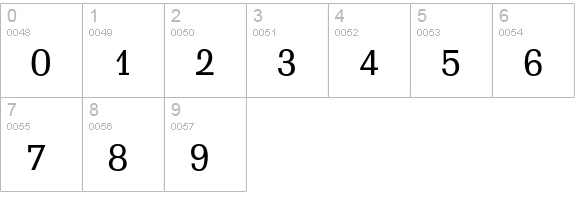
Schadow-Antiqua Light Font Details
Schadow-Antiqua Light is a refined, elegant variant in the Schadow typeface family \xE2\x80\x94 well suited to elegant body text, refined sub-headings, and luxury branding.
Schadow-Antiqua Light font is a timeless and elegant typeface that exudes sophistication and refinement. With its delicate and slender letterforms, this font adds a touch of class to any design project. Its clean lines and graceful curves make it perfect for both headline and body text, ensuring readability and visual appeal. The Schadow-Antiqua Light font is a versatile choice that can be used in a variety of settings, such as branding, advertising, editorial, and more. Its classic and timeless design makes it suitable for both traditional and contemporary designs, adding a touch of elegance to any project. One of the most appealing aspects of the Schadow-Antiqua Light font is that it is freely available to download at FontsMarket.com. This means that designers and creatives can easily access and utilize this font for their projects without any cost. The availability of this font for free allows for greater accessibility and creativity, as it eliminates any financial barriers that may exist. Whether you are working on a personal project or a professional endeavor, the Schadow-Antiqua Light font is a valuable resource that can elevate your designs to new heights. Its timeless beauty and versatility make it a must-have in any designer's toolbox. So why wait? Download the Schadow-Antiqua Light font for free at FontsMarket.com and unlock the endless possibilities it offers.